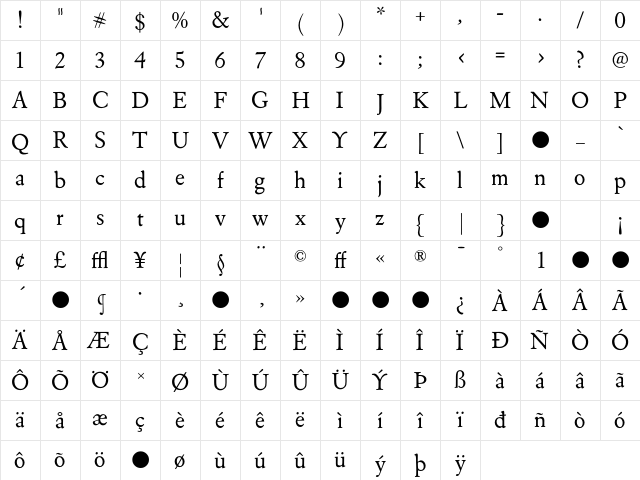
Eldorado Roman
Eldorado Family
Design Context for Eldorado
Eldorado is a composed and adaptable typeface that performs quietly and consistently across a wide range of design contexts.